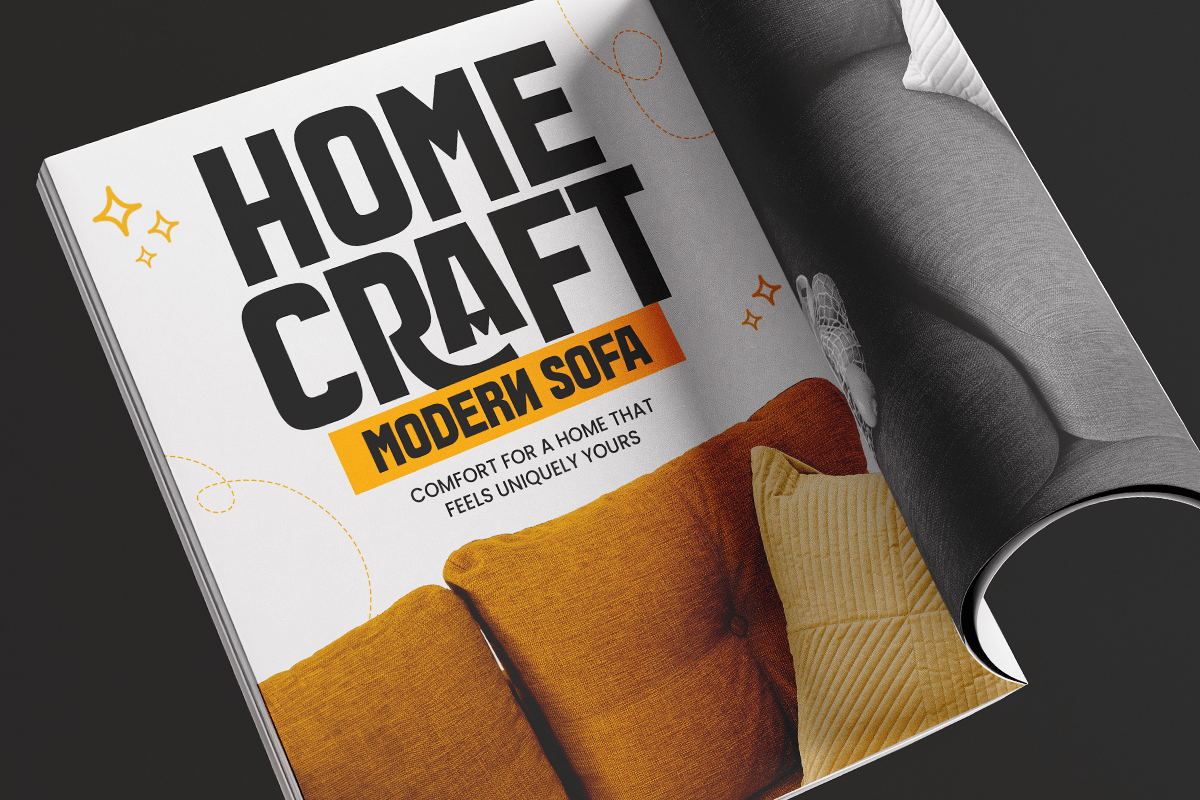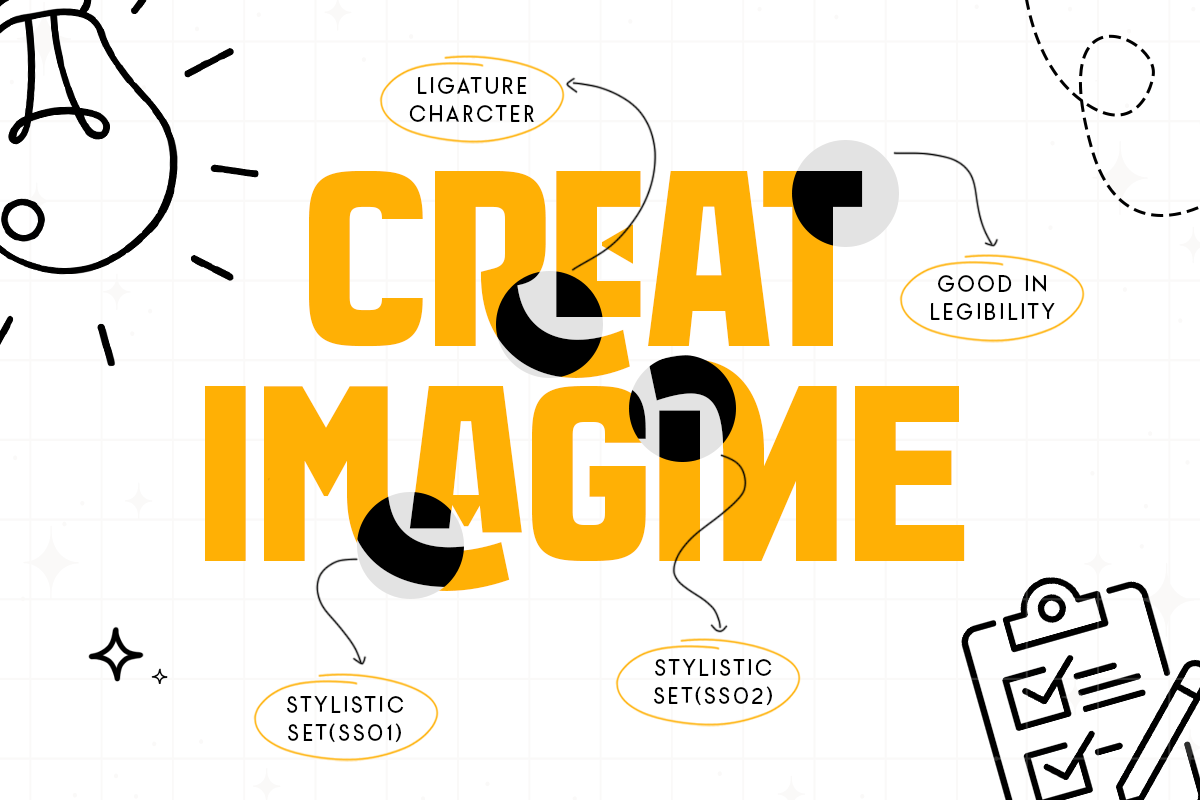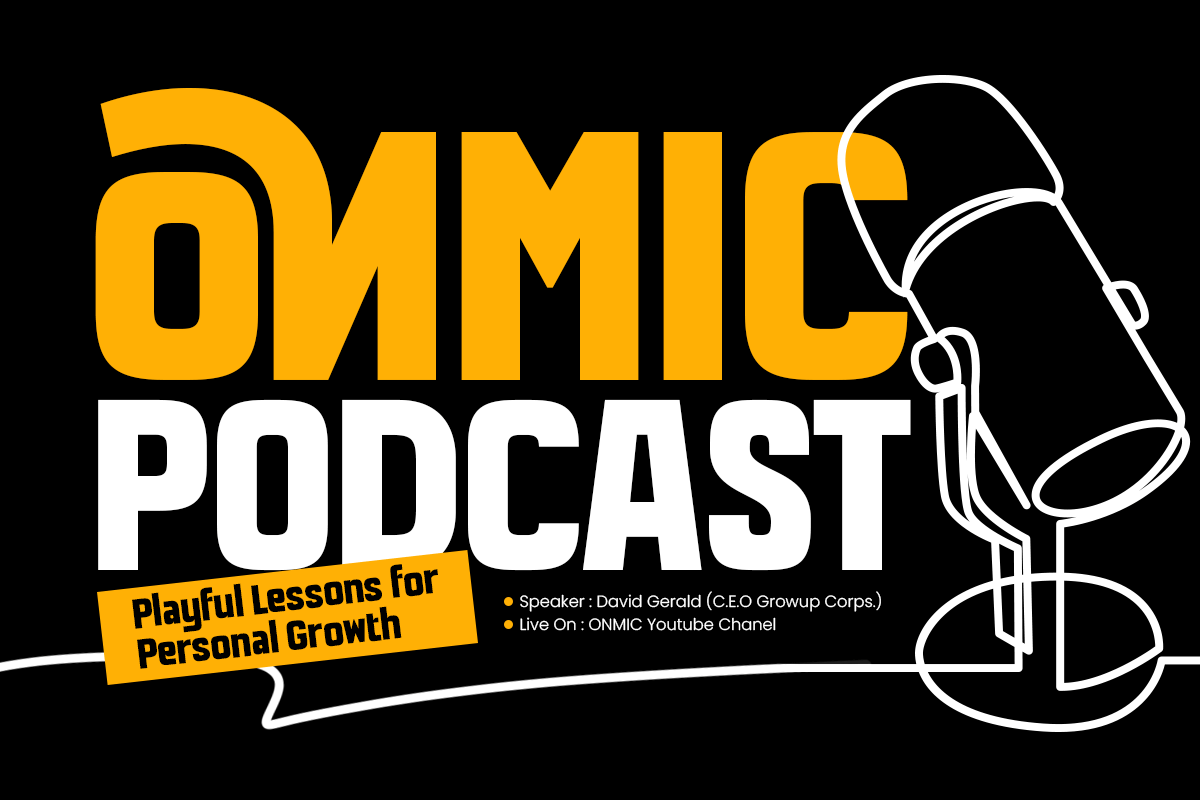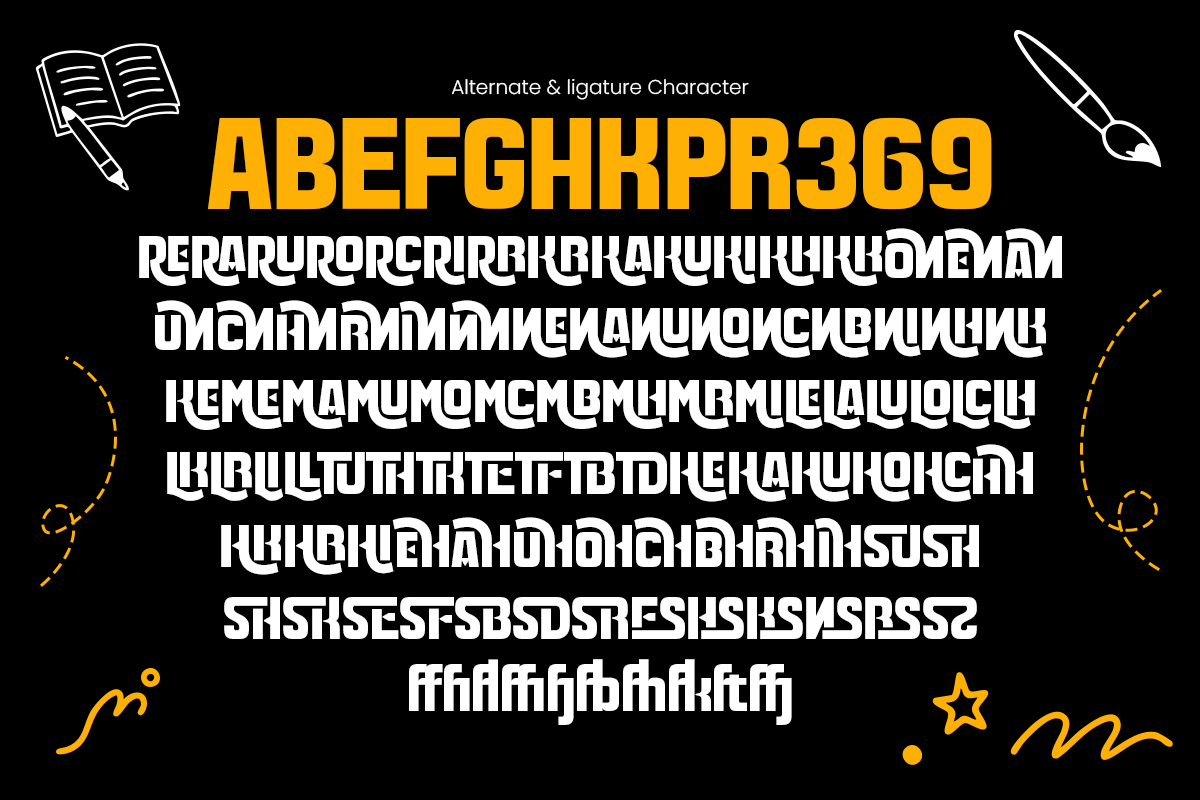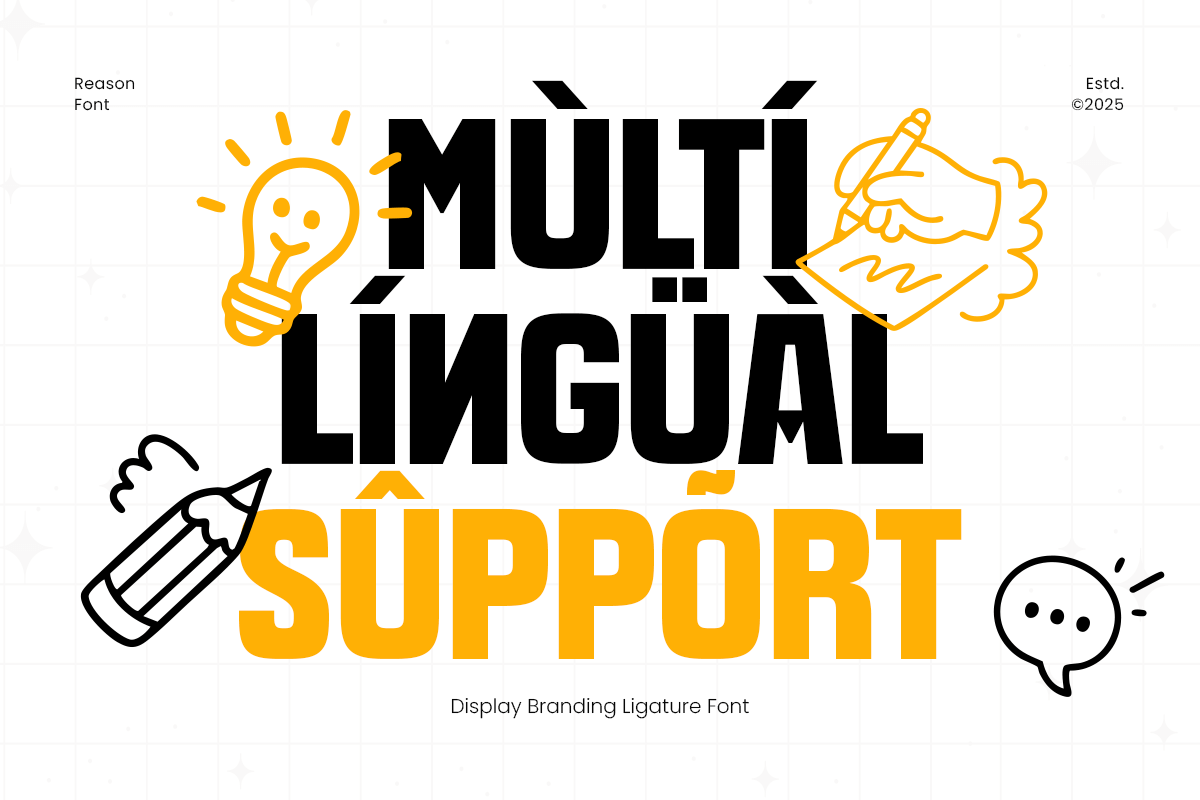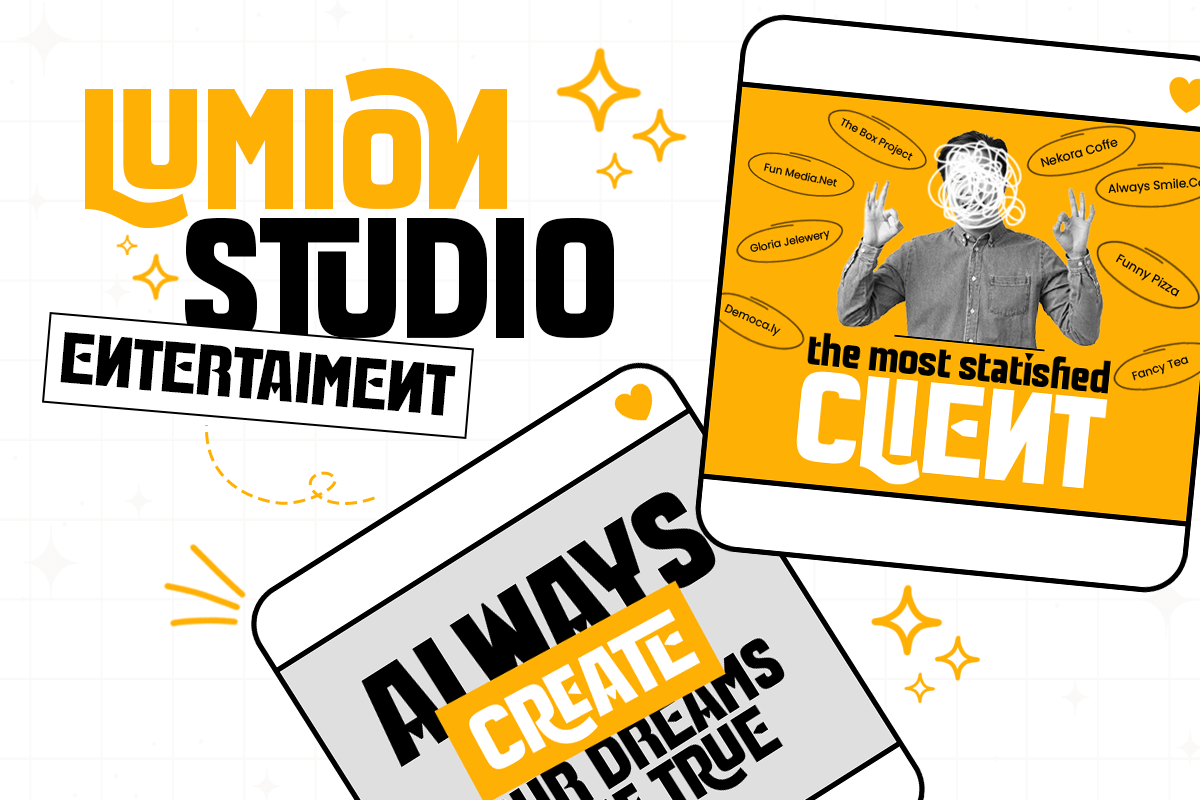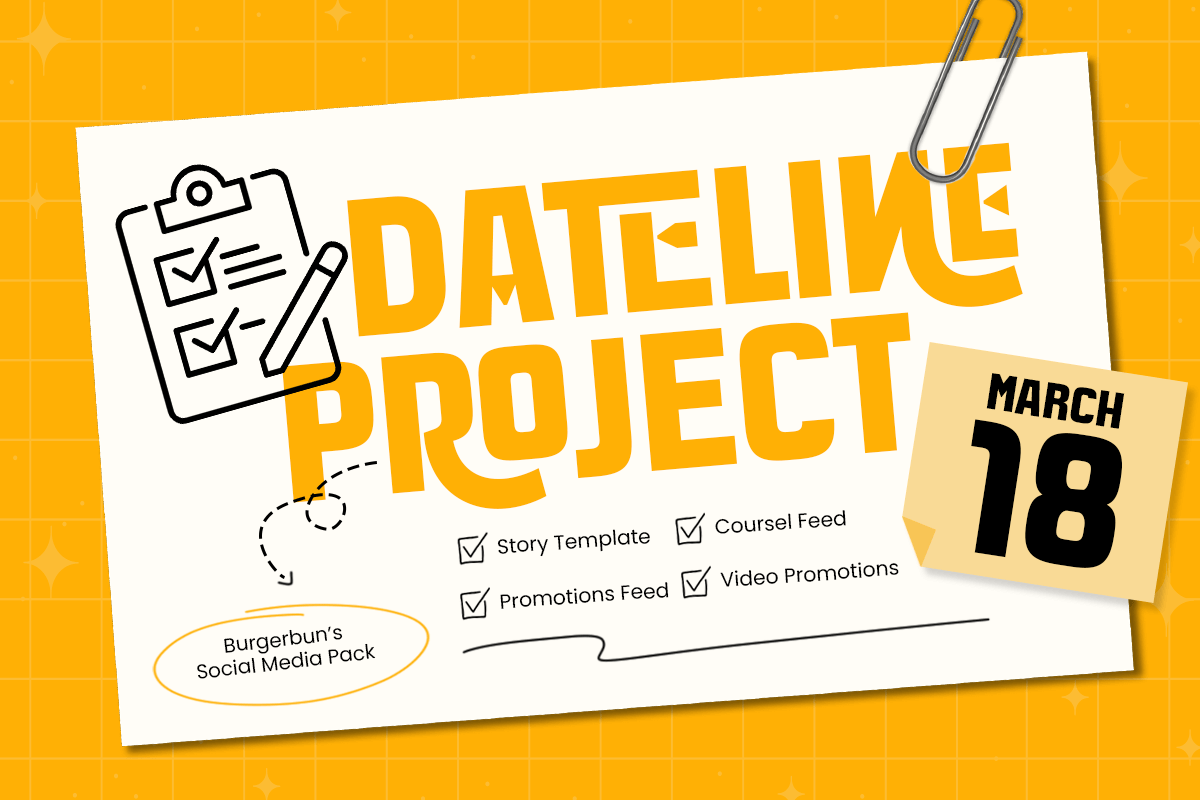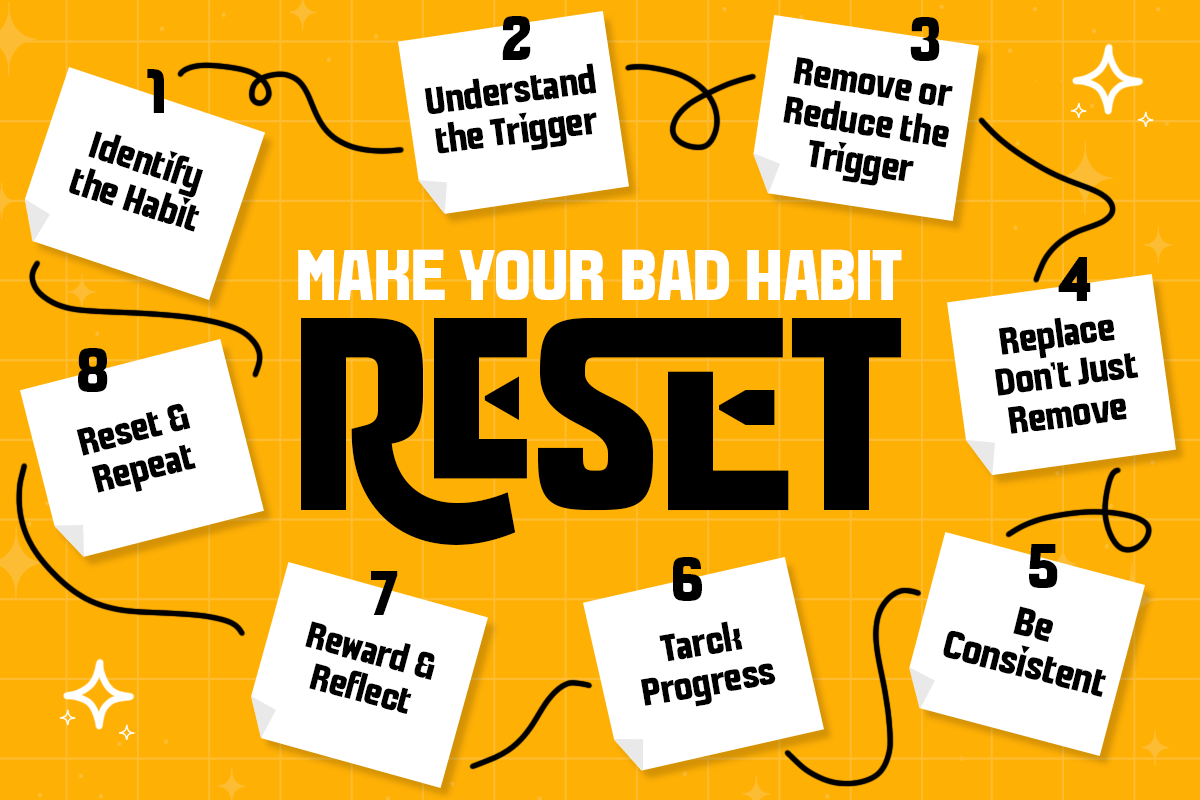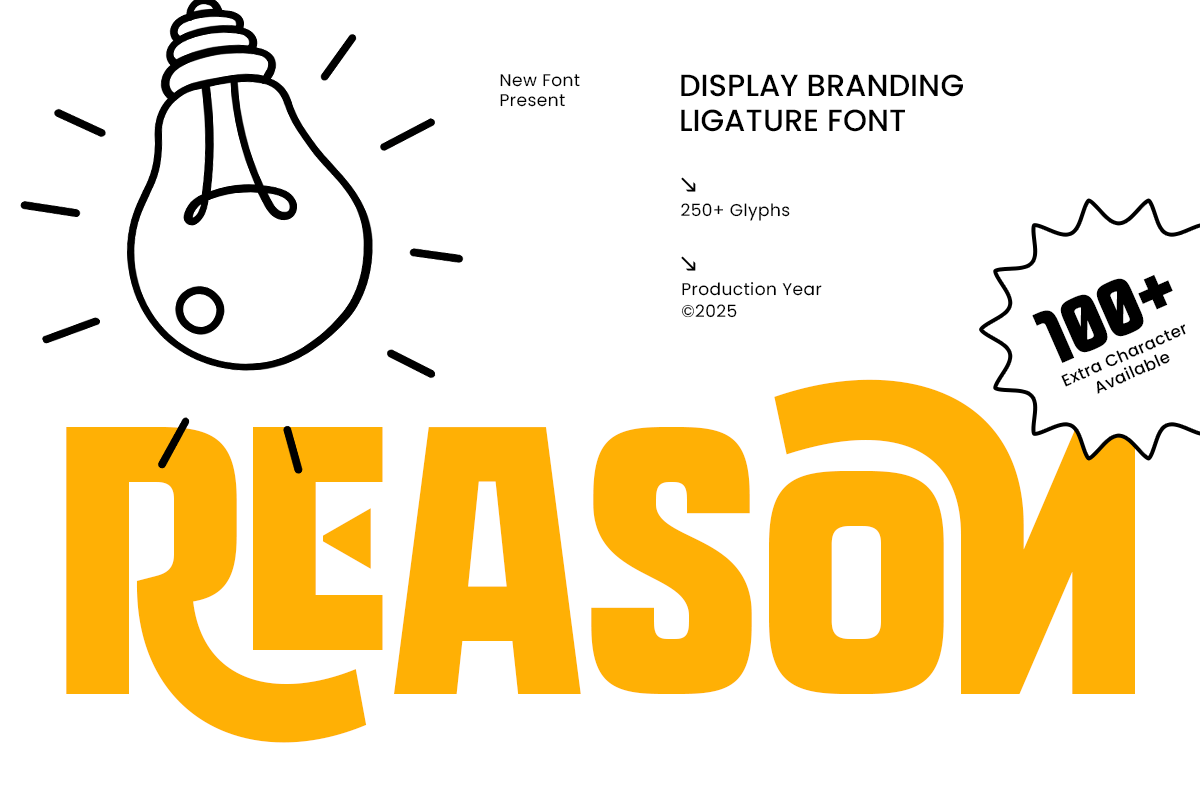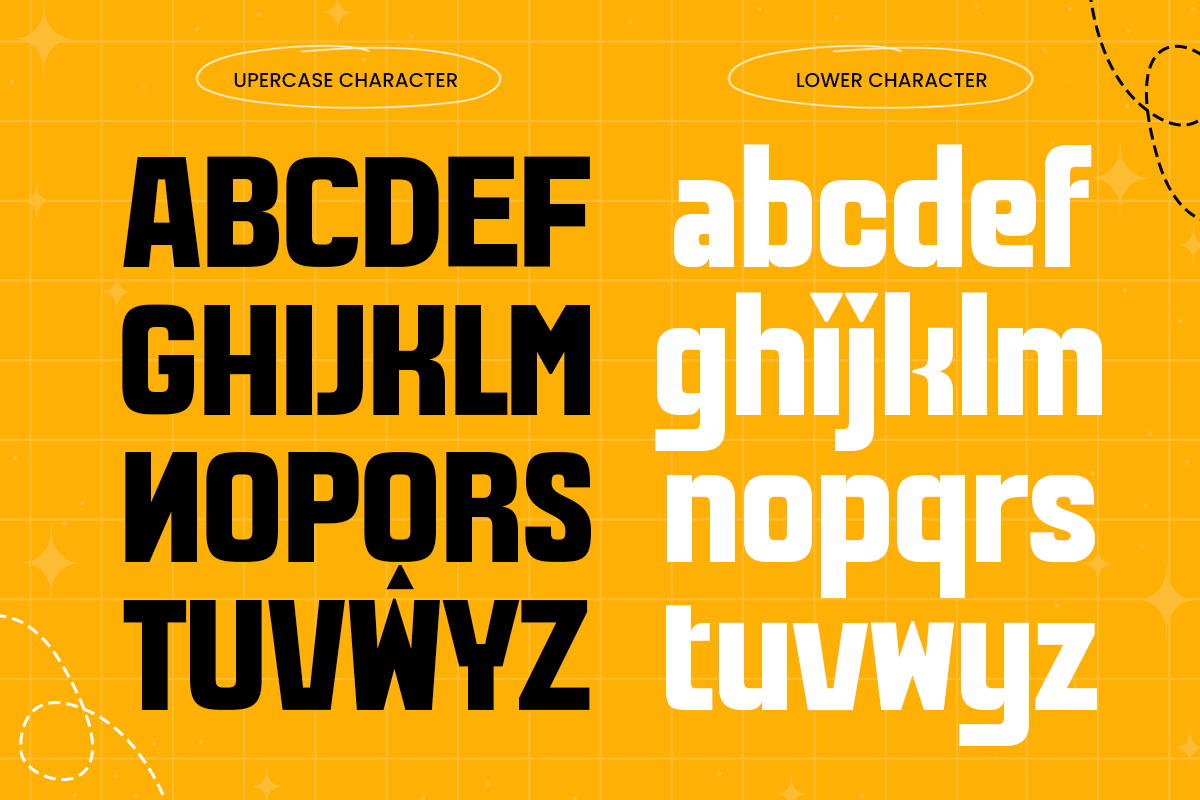
Reason - Display Branding Font
Reason – Display Bold Branding Ligature Sans Serif Font
Reason is a bold and modern sans-serif font crafted to make your branding stand out with confidence and style. Featuring strong letterforms and elegant ligatures, Reason combines the power of display typography with the versatility of corporate design, ideal for modern logos, packaging, and editorial layouts.
With its geometric balance and bold aesthetics, Reason is perfect for creative professionals, agencies, startups, and brands seeking a modern, high-impact visual identity. Its ligature details and clean sans-serif structure give every project a sense of sophistication, strength, and clarity.
Reason – Display Bold Branding Ligature Sans Serif Font Features:
\* Bold sans-serif style with stylish ligatures for modern branding
\* Perfect for logos, posters, packaging, and editorial designs
\* Includes uppercase, lowercase, numerals, and punctuation
\* Optimized kerning and smooth readability for all media
\* Professional and contemporary aesthetic for strong brand presence
Make your designs stand out with Reason – the bold ligature display font that defines modern branding and timeless style.